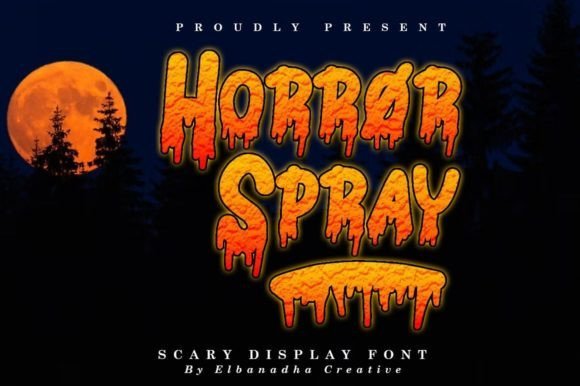
The Perfect Font for a Killer Design
Have you ever stared at a blank page, waiting for the perfect font to bring your design to life? That moment of inspiration is what drives designers to create something truly terrifying – like the Horror Spray Font. This unique font combines the eerie feeling of a brushstroke with the unsettling elements of blood dripping and bones that resemble letters.
The Horror Spray Font is a game-changer for designers looking to create an immersive experience. Whether you’re working on invitations, postcards, posters, or headings for a Halloween event, this font can elevate your design to a whole new level. Its versatility makes it a valuable addition to any designer’s toolkit.
Horror Spray Font Key Features
- Font Family: Horror Spray, a unique, hand-drawn horror-themed font.
- Character Set: Includes a wide range of characters, including uppercase and lowercase letters, numbers, and punctuation marks.
- Unique Characteristics: Features a distressed, spray-painted look with bold lines and eerie details, perfect for horror-themed designs.
Review: Horror Spray Font
At first glance, Horror Spray Font caught my attention with its unique blend of distressed and horror-inspired aesthetics. Here are the things that ✨work well✨:
- Creepy, yet stylish: The font’s distressed look and horror-inspired elements make it perfect for adding a spooky touch to any design.
- Highly versatile: From horror-themed posters to video game titles, Horror Spray Font can be used in a wide range of applications.
- Well-designed letterforms: The font’s letterforms are well-designed and easy to read, even in small sizes.
However, I did encounter some limitations ⚠️:
- Limited character set: Horror Spray Font has a relatively small character set, which may limit its use in certain applications.
- No bold or italic styles: The font only comes in a regular style, which may not be ideal for designs that require bold or italic text.
Overall, I’d say Horror Spray Font is a great choice for designers looking to add a touch of horror to their designs. While it has some limitations, its unique aesthetic and versatility make it a solid addition to any font collection.
For a more dramatic effect, use the Horror Spray Font in bold or italic styles. You can also combine it with other distressed fonts or textures to create a unique look.
The Horror Spray Font is perfect for Halloween-themed designs, spooky posters, and creepy invitations. You can also use it in horror movie titles, video game designs, or any other project that requires a spooky atmosphere.
Can I customize Horror Spray Font to fit my specific design needs?
Yes, Horror Spray Font is highly customizable, allowing you to adjust various font attributes such as font size, line height, and letter spacing. You can also use font editing software or apps to create custom variations of the font. However, please note that any customizations may affect the font’s original distressed effect.